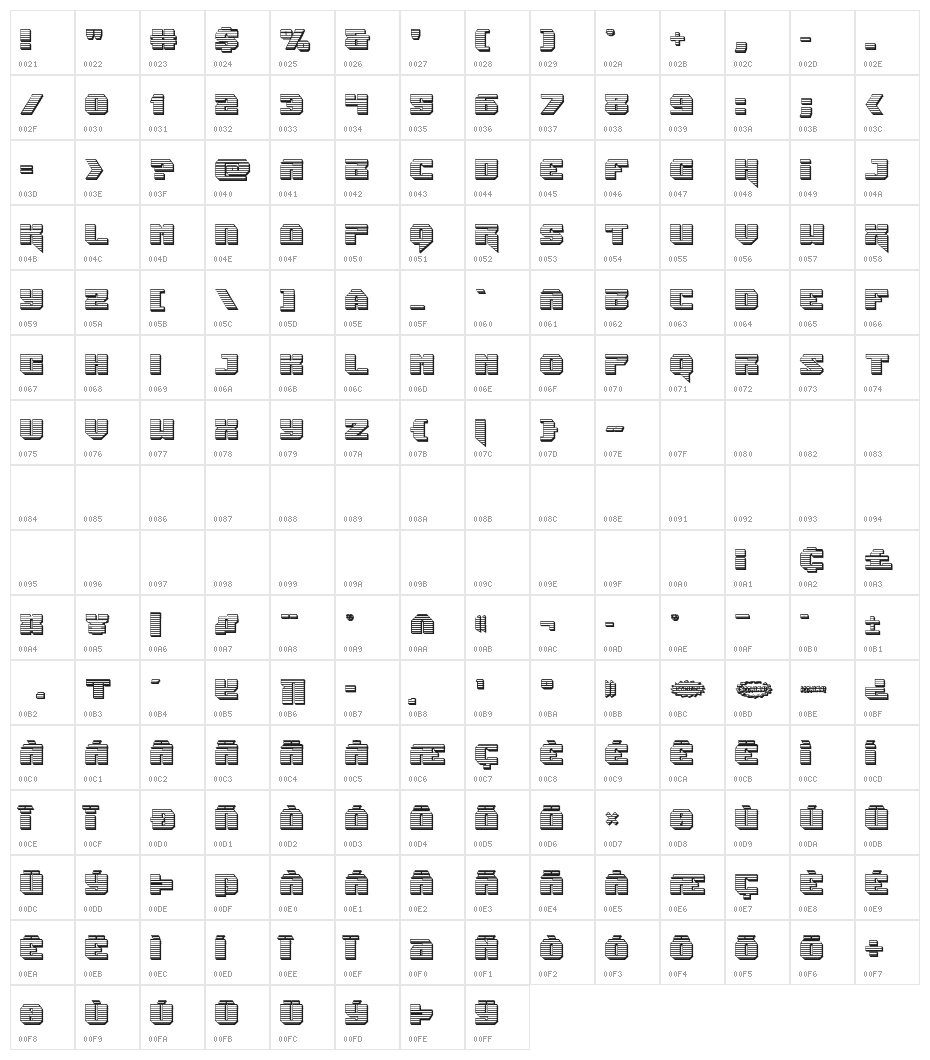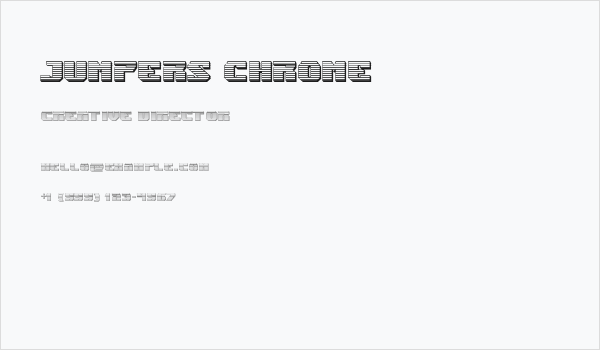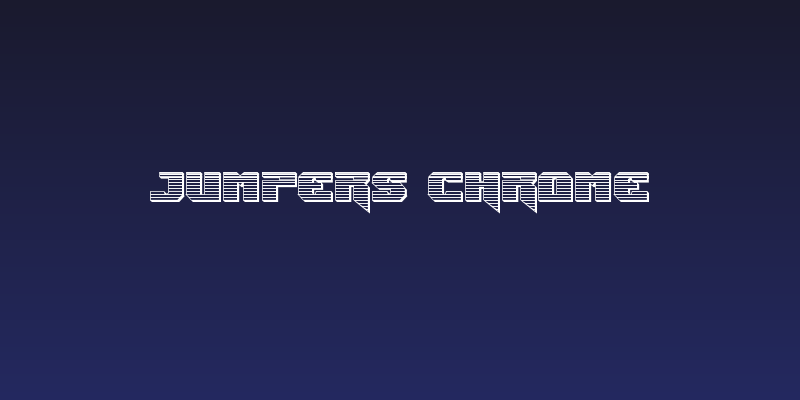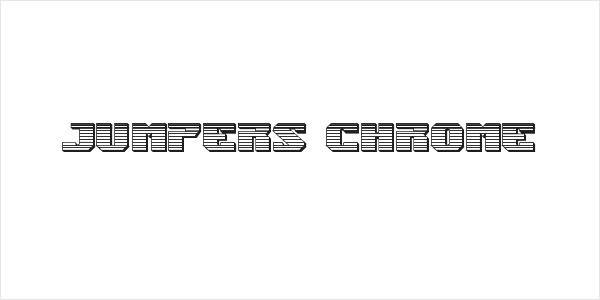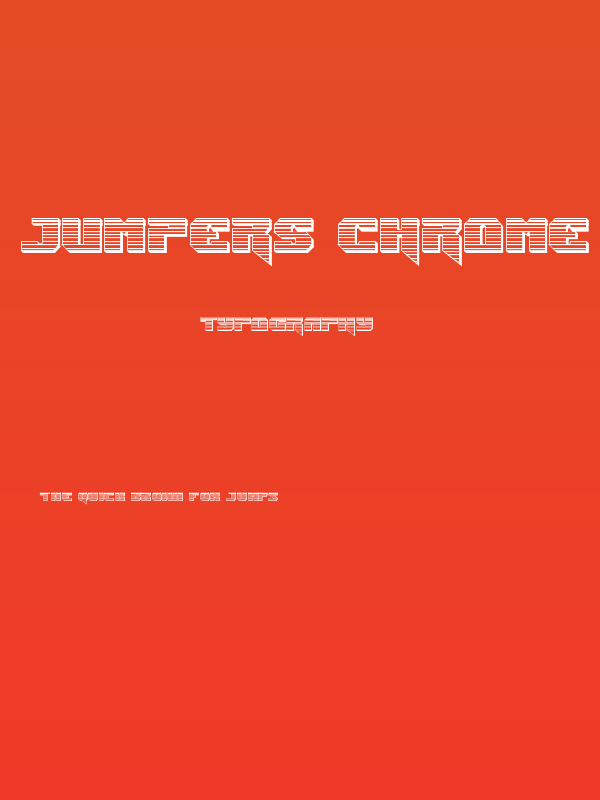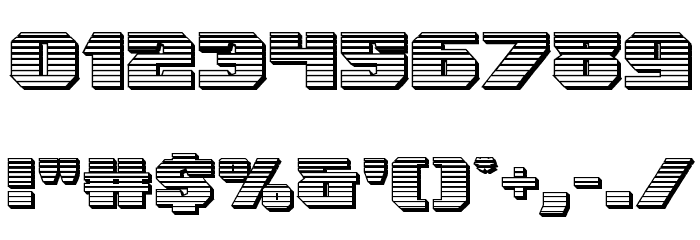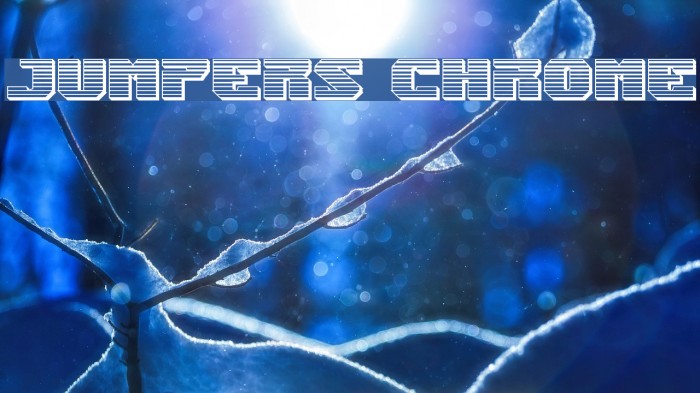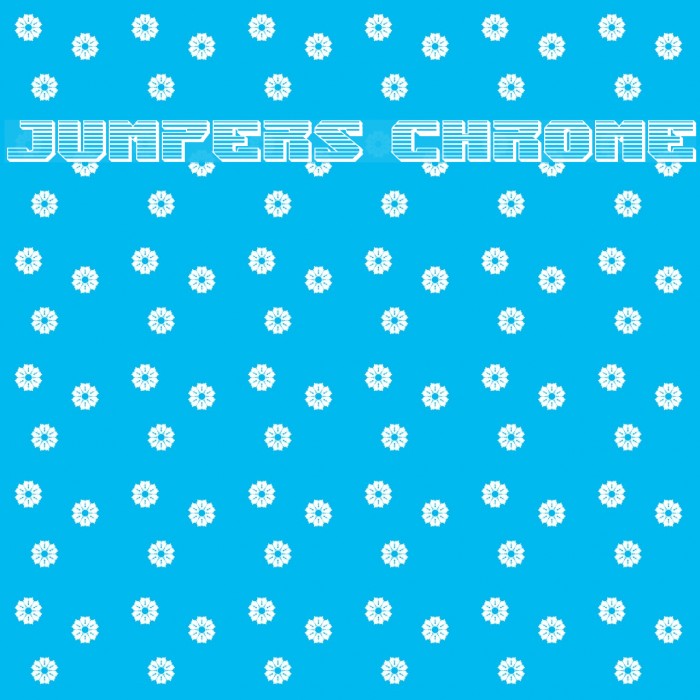
Jumpers Chrome Font
Jumpers Chrome Description
This font features a bold, geometric design with a distinct 3D effect created by horizontal lines and shadowing. Each character is constructed with a series of parallel lines that give it a layered appearance, reminiscent of a futuristic or industrial style. The angular shapes and sharp edges contribute to its dynamic and eye-catching look, making it suitable for projects that require a strong visual impact. The font maintains consistent spacing and alignment, ensuring readability despite its complex design.
| Overall Style | Futuristic, Industrial |
| Proposed Projects | Ideal for posters, logos, video game graphics, and futuristic-themed designs. |